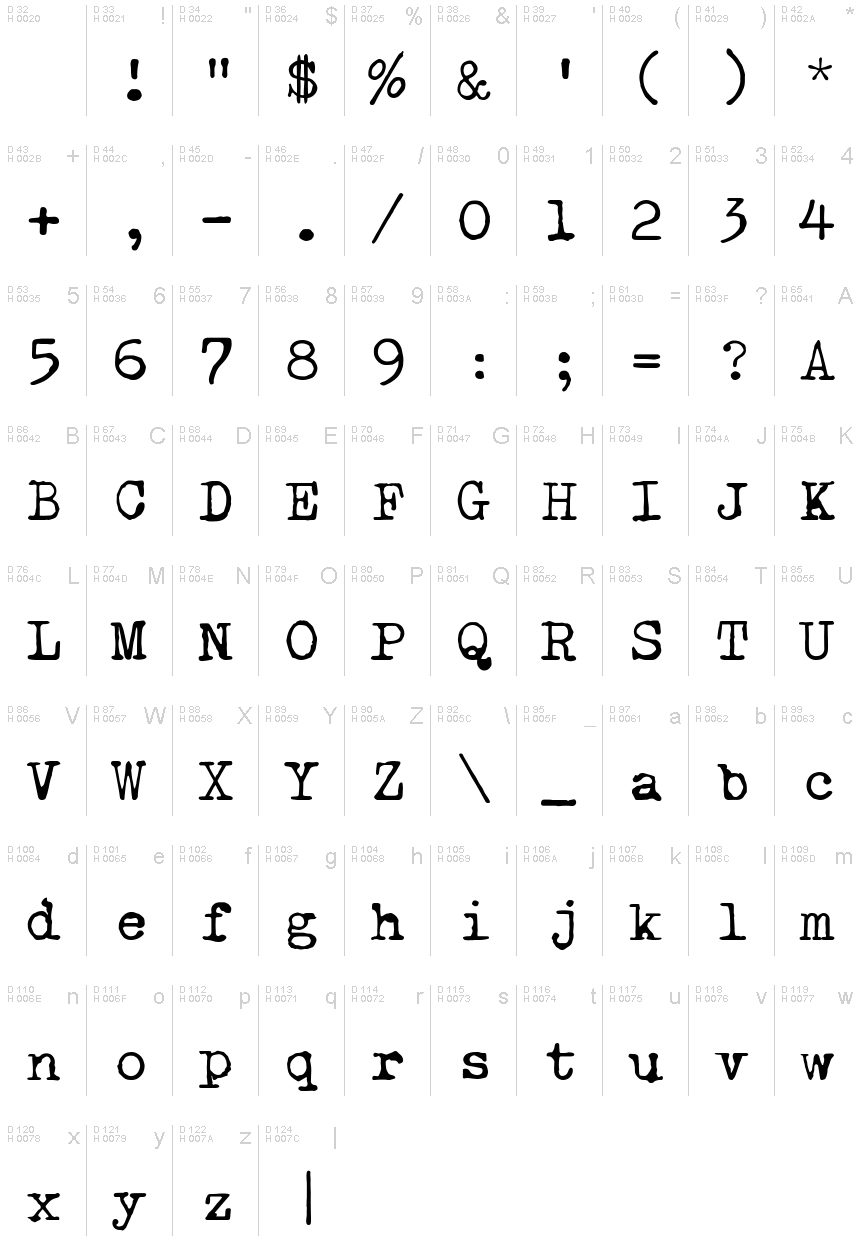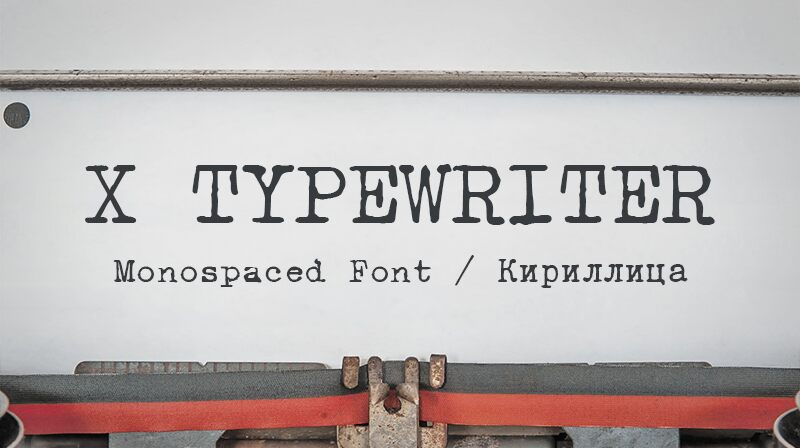
X Typewriter
X Typewriter, a captivating display font crafted by GGBotNet, exudes a weathered, typewriter-inspired aesthetic that instantly commands attention. With its eroded, textured appearance and distinct character forms, this font emanates a sense of vintage charm and industrial nostalgia. The uneven edges and irregular letter shapes lend a raw, artisanal quality, evoking a sense of authenticity and individuality. This typeface's unique personality shines through, making it a compelling choice for projects that seek to convey a retro-inspired or gritty visual narrative.
The X Typewriter font's distinctive characteristics make it a versatile option for a range of design applications, from eye-catching headlines and logo designs to edgy branding and packaging elements. Its rugged, typewriter-esque quality lends itself well to projects that aim to capture a vintage, industrial, or DIY-inspired aesthetic, such as album covers, event posters, or editorial layouts. The font's striking personality can also be effectively utilized in product packaging, signage, and various other contexts where a visually impactful and memorable typographic treatment is desired.